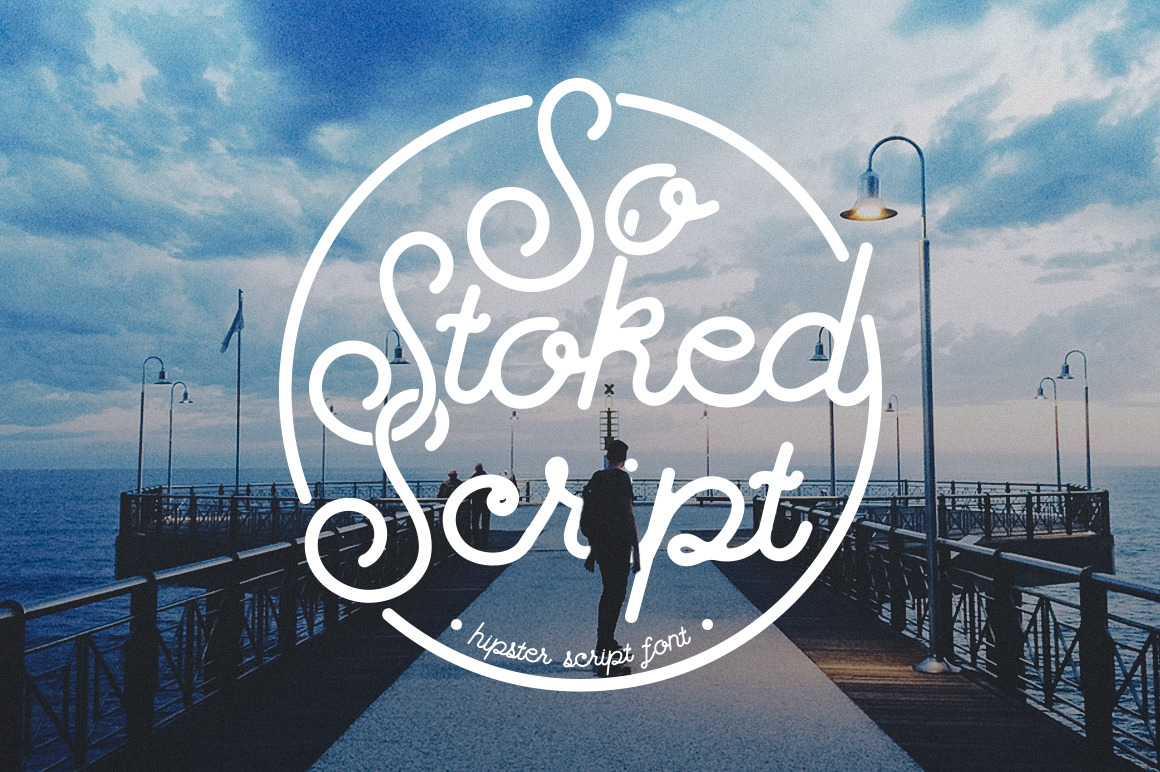
So Stoked Script Font
Let me introduce the new Script font "So Stoked", a hipster script font that represent young, free, and excited about something. This font is suitable for promotion, headline, display font, greetings cards, and branding.